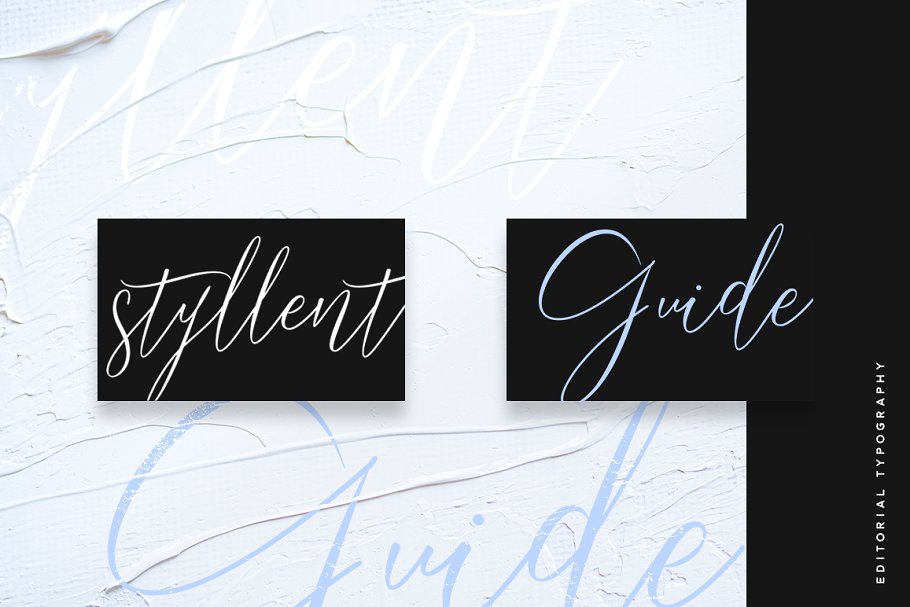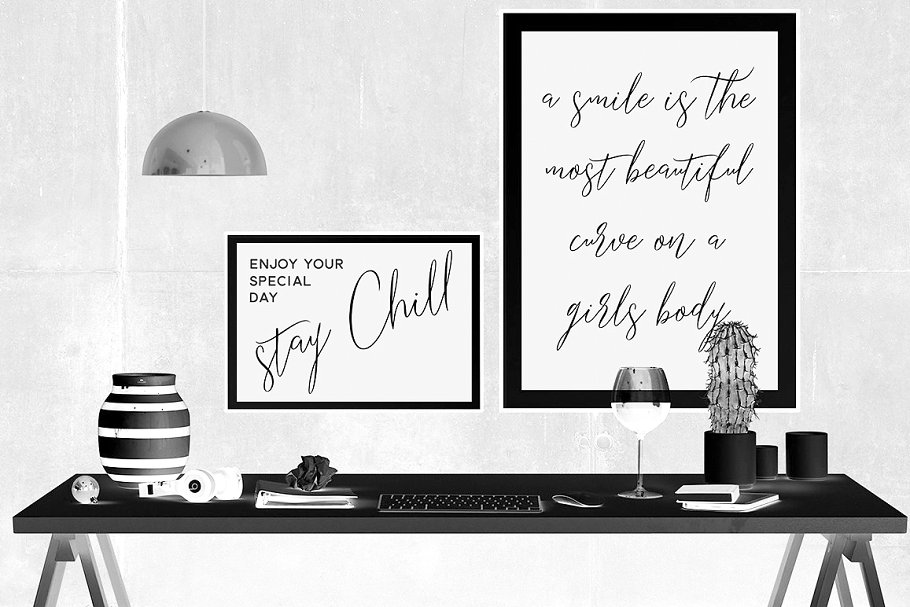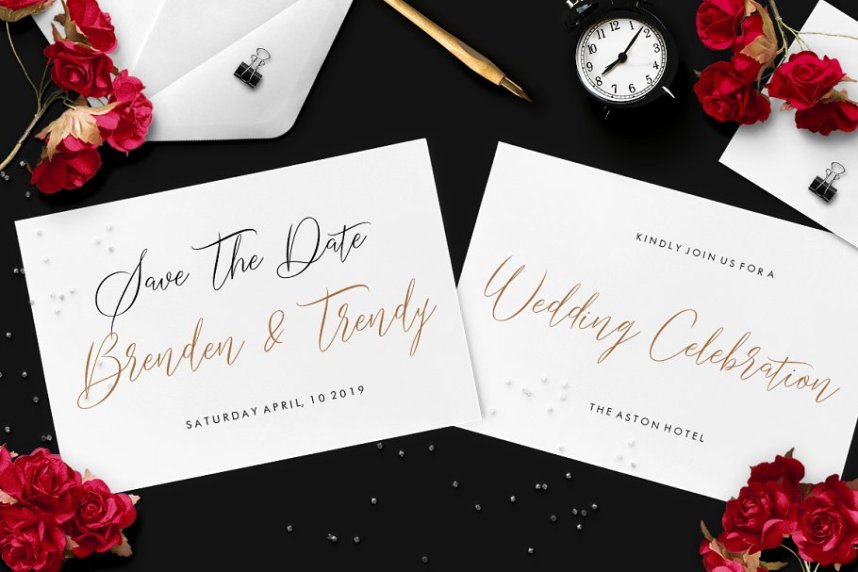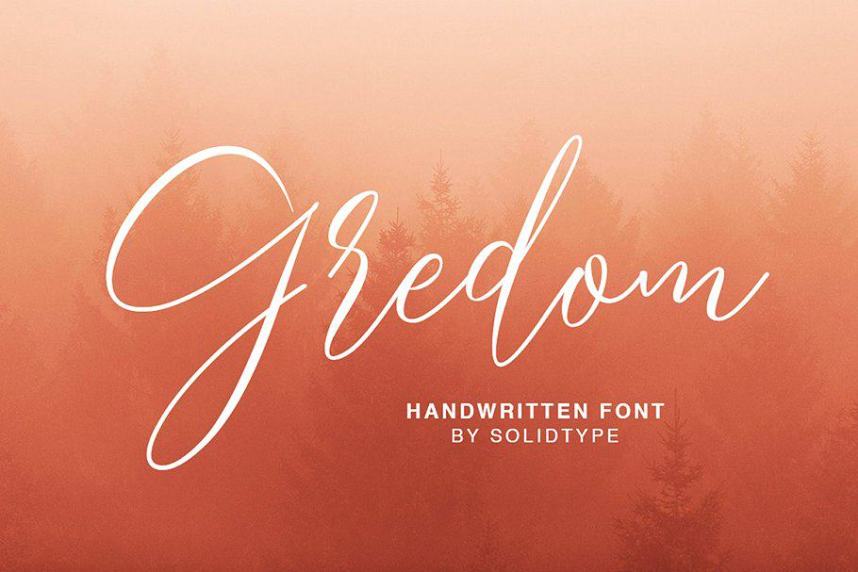
Gredom Script Font
This is a modern signature typeface, with a soft style and has an elegant nuances, classy and natural. Introducing Gredom Font. Gredom is a gorgeous and simple handwritten script font; contemporary and fashionable, Gredom looks great for a large range of project types. This elegant font is legible and looks great as a headline or in body text. This font will perfect for many different project for blogging, social media, branding, wedding invites, cards etc.